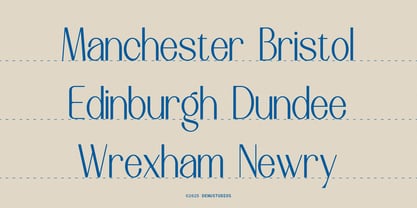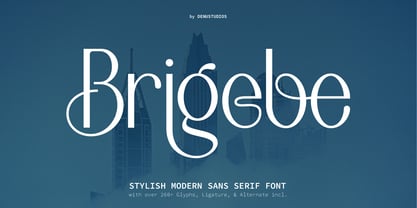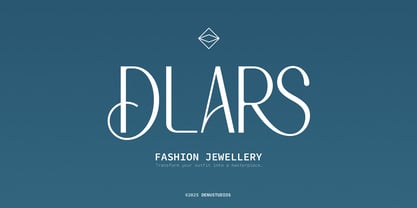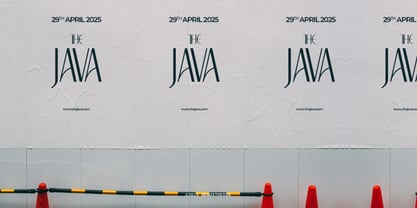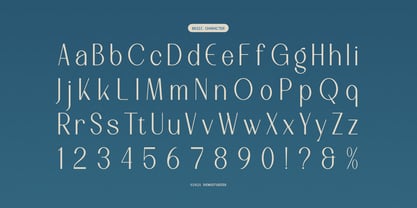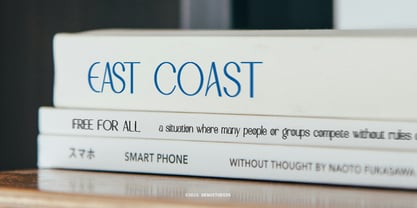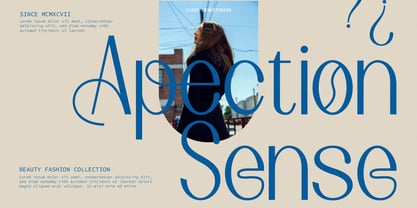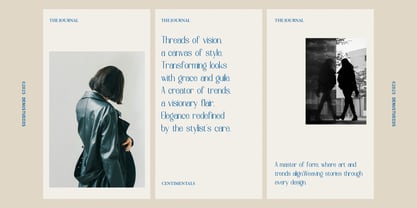
Brigebe
by Denustudio
The Brigebe Font Family was designed by Dede Nugraha and published by Denustudio. Brigebe contains 2 styles and family package options. More about this family
Brigebe | Stylish Modern Sans Serif, from Denustudios, suitable for any projects such as: logos, branding projects, homeware designs, product packaging, mugs, quotes, posters, shopping bags, t-shirts, book covers, name card, invitation cards, greeting cards, label, photography, watermark, special events, and all your other lovely projects that need a Stylish Modern Sans Serif taste.
• Regular and Italic
• Standard glyphs
• Alternate and Ligature
• Fonts include multilingual support
Designers: Dede Nugraha
Foundry: Denustudio